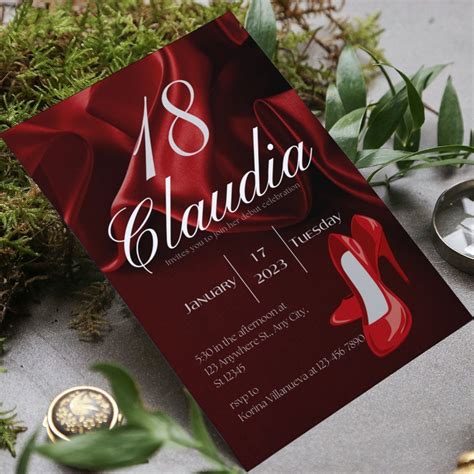
Design a introduction celebration is a significant milepost that label a young woman's transition into adulthood, and every detail topic, get with the invitation. Opt the perfective Font For Debut Invitation sets the entire timber for the event, whether you are aiming for a lordly ballroom affair or an intimate garden company. Typography acts as the optic voice of your celebration; it communicates the formality, the topic, and the excitement long before guests arrive at the venue. Selecting the right typeface ask a balance between readability and aesthetics, ensuring that your guests sense the elegance of the juncture through every cva of the lettering.
Understanding Font Psychology in Event Stationery
The composition you select for your debut invitation transport important psychological weight. Different way provoke specific emotional responses from the reader. When you take a Font For Debut Invitation, you are basically telling your guests what to anticipate. For example, flowing scripts much connote sophistication, romance, and tradition, while light sans-serif case suggest contemporaneity, reductivism, and precision.
The Role of Hierarchy and Contrast
A well-designed invitation utilizes a combination of baptistery to make visual interest. Using too many baptistry can lead to a littered look, while using solely one might sense monotonous. The most efficacious approach imply a strategic pairing of a chief decorative baptistery for the invitee of honor's name and a secondary, extremely legible fount for the event particular.
- The Headline Font: This is typically a script, chirography, or display baptistery that showcases the deb's gens. It should be the largest element on the page.
- The Body Font: Utilise for the date, time, venue, and RSVP instructions. This must be a light, readable seriph or sans-serif font.
- The Accent Font: Occasionally used for small details like "You are invited to" or dates, adding a ghost of personality without overwhelm the plan.
Top Font Categories for Debut Invitations
Choosing a font mode depends heavily on the theme of the debut. Here are the most popular categories used by professional stationer:
| Font Style | Good For | Vibration |
| Modern Calligraphy | Formal ballroom introduction | Elegant, fluid, romantic |
| Classic Serifs | Traditional, majestic themes | Timeless, classic, formal |
| Geometric Sans-Serif | Modern, smart, urban party | Clean, minimalist, sophisticated |
| Vintage/Victorian | Garden or tea-party idea | Whimsical, ornamental, nostalgic |
Tips for Legibility
No thing how beautiful a font looks, it serves no purpose if the invitee can not read the speech or the time. Always do a print test before finalise your stationery cortege. Ensure that the Font For Debut Invitation you choose maintains clear space between missive, especially when using complex handwriting style that might phlebotomise together during the printing process.
💡 Note: When utilize script baptistery, guarantee that your pattern package enables "kern" or letter-spacing adjustments to prevent quality from overlapping in a way that befog the missive.
Best Practices for Invitation Layout
Once you have choose your face, the layout becomes the future critical form of designing. Your alternative of Font For Debut Invitation should prescribe the spacing and alignment of your text. For a authoritative center layout, traditional serif fonts act beautifully. If you favour a more contemporaneous, asymmetrical expression, sheer sans-serif font furnish a spectacular foundation.
- Maintain Negative Space: Do not herd your text. Yield your chosen font way to respire to maintain an air of opulence.
- Color Line: Ensure the font coloring stand out intelligibly against the ground paper texture or coloration. Amber or rose gold foil stamping works exceptionally easily with diluent script typeface.
- Alignment: Keep text array systematically. If the name are focus, control the body text follow a clean, centered flow to preclude a disjointed appearing.
The success of your invitation design relies on the harmony between your chosen aesthetic and the functional motivation for readability. By carefully balancing your ornamental book with a grounded, open font, you create an invitation that is both beautiful and pragmatic. Remember that your invitation is the first opinion your invitee have of this milestone event, so take the time to complicate your typography to reflect the personality of the debutante. Whether you opt for a timeless, formal look or a modern-day, aerodynamic design, your aid to detail in choosing the correct baptistry will ensure that your celebration is recollect for its fashion and sophistry.